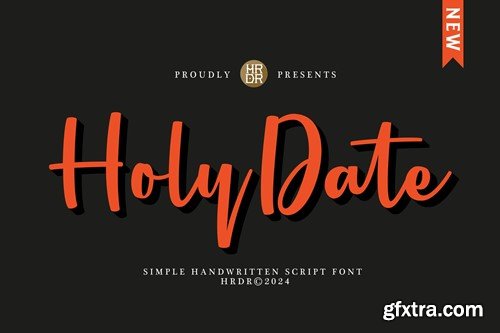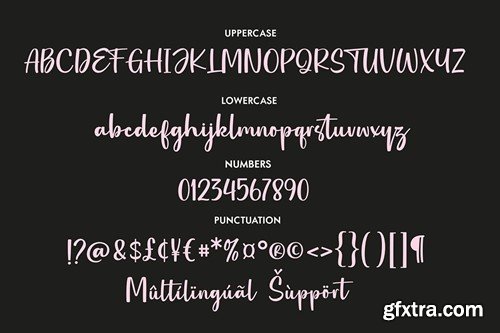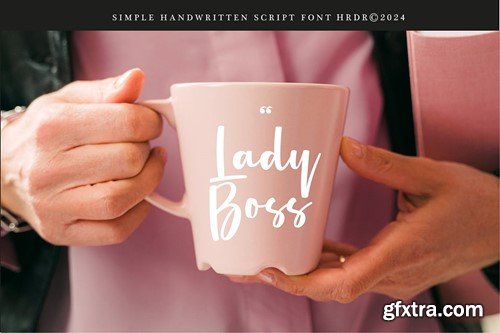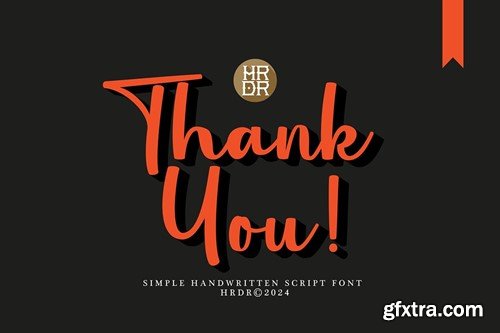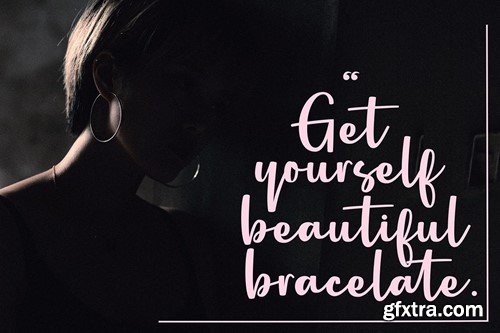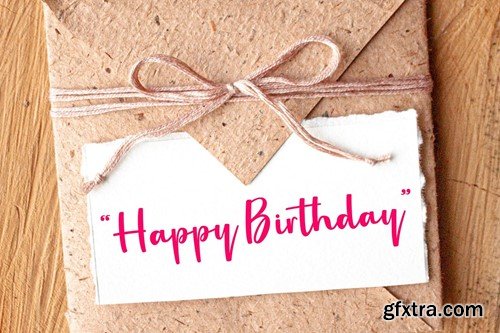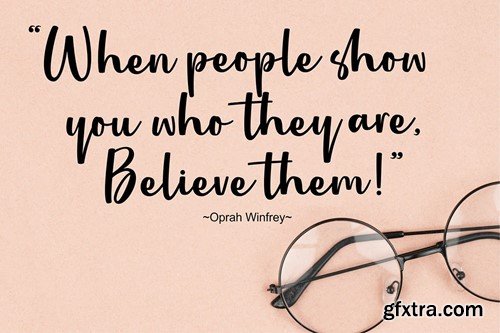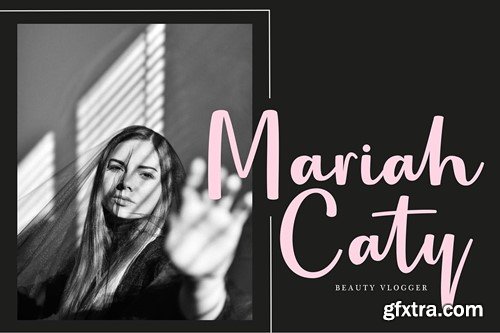
Holy Date - Elegant Handwritten Font
Holy Date Font is a Elegant and Simple Handwritten Font. It's perfect for branding, wedding invitations, photography, Neon Sign, bloggers, logos, greeting cards, Logo, Quotes and more. Font Features : Holy Date files with OTF and TTF file and support PUA Encoded font files for use with software that doesn't support OpenType features such as Silhouette, Inkscape, etc. All of features and special characters of this font are included in one file. So it is easy to accessed by using program or software that support the opentype like Adobe Illustrator, Adobe Photosop, and Adobe Indesign).